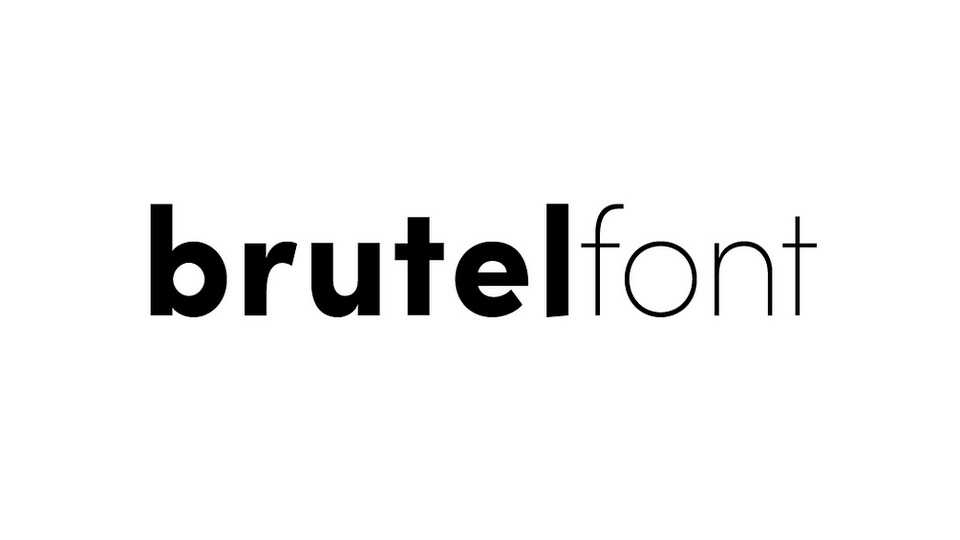
Download Brutel typeface, a geometric sans serif font family with 9 weights. Brutel is a versatile, modern font, highly legible as a text font and with a clean and sharp look as a display font at larger sizes.
Designer: Iordanis Passas